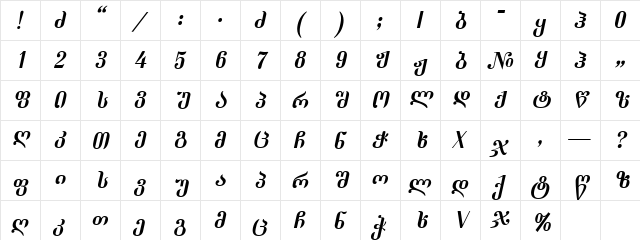
Dumbadze-ITV Italic Font Preview
Dumbadze-ITV Italic
Dumbadze-ITV Italic Font Details
Design Context for Dumbadze-ITV Typeface
Dumbadze-ITV is a composed and adaptable typeface that performs quietly and consistently across a wide range of design contexts. The dynamic lean of this cut emphasises speed and emphasis in any layout.